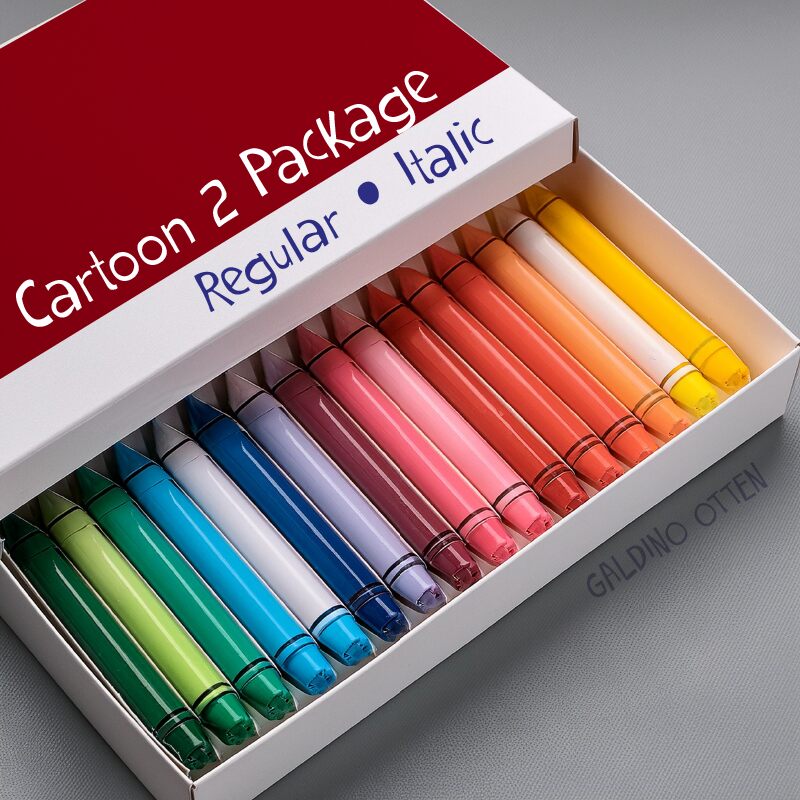
Cartoon 2 Package Italic exhibits a whimsical, dynamic charm that effortlessly brings any design to life. Crafted by Galdino Otten Fonts, this font's distinctive distorted style adds an element of playful unpredictability. Its fluid and energetic curves make it ideal for creating eye-catching titles, animated graphics, and vibrant posters where character and individuality are paramount.
Perfect for children's literature, comedic content, or any project seeking a youthful ambiance, Cartoon 2 Package Italic seamlessly blends fun with creativity. Embrace its lively persona to add a splash of excitement to your designs!